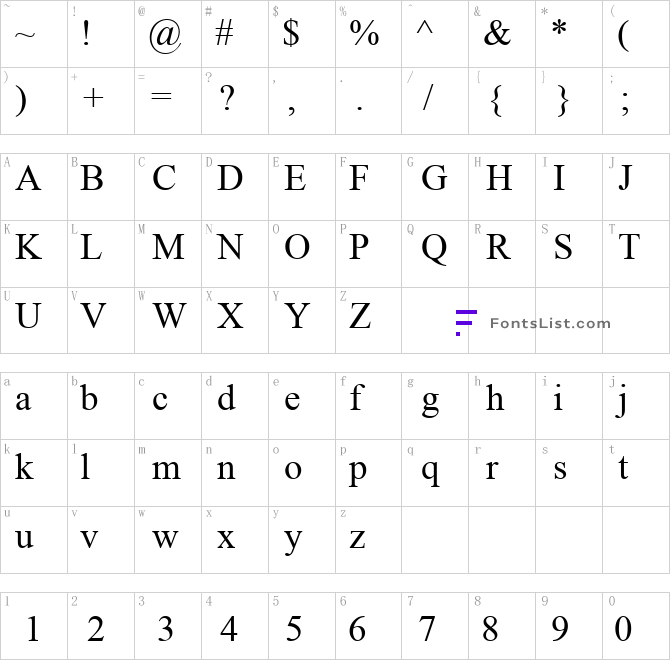
- Font Name:Alpsoft Sulus
- Full Name:Alpsoft Sulus Bold
Alpsoft-Sulus-Bold.ttf is a very beautiful artistic font, Alpsoft-Sulus-Bold.ttf is widely used in the design and printing of various books and pictures,Alpsoft-Sulus-Bold.ttf has a strong visual impact,Alpsoft-Sulus-Bold.ttf is a commonly used font in newspapers, magazines and books, and is used in posters, e-commerce Poster design, store design, logo design, font design and other fields.Alpsoft-Sulus-Bold.